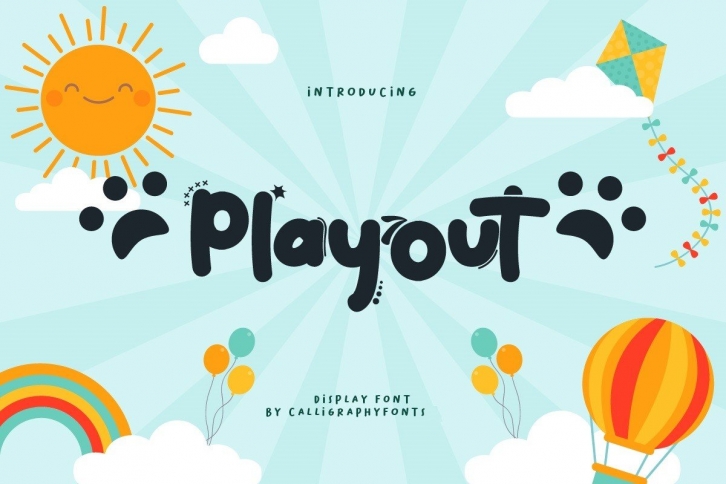
Playout is a cute, paint brushed display font. Whether you use it for cartoon related designs, children games or just any creation that requires a lovely touch, this font will be an amazing choice.